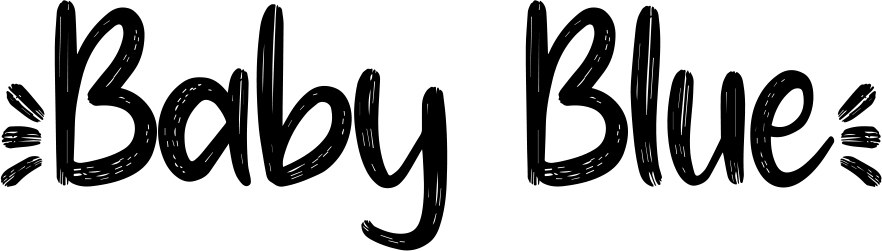
How sweet your texts will be if they are connected with this cute font. Its curly and playful design will please any eye of readers to practice this Passing Notes font more in any posters, greeting cards, invitations, cartoons, girly apparel design, and other creative displays. Moreover, its handwritten style is an excuse to associate nature and organic ambiance with your typography.